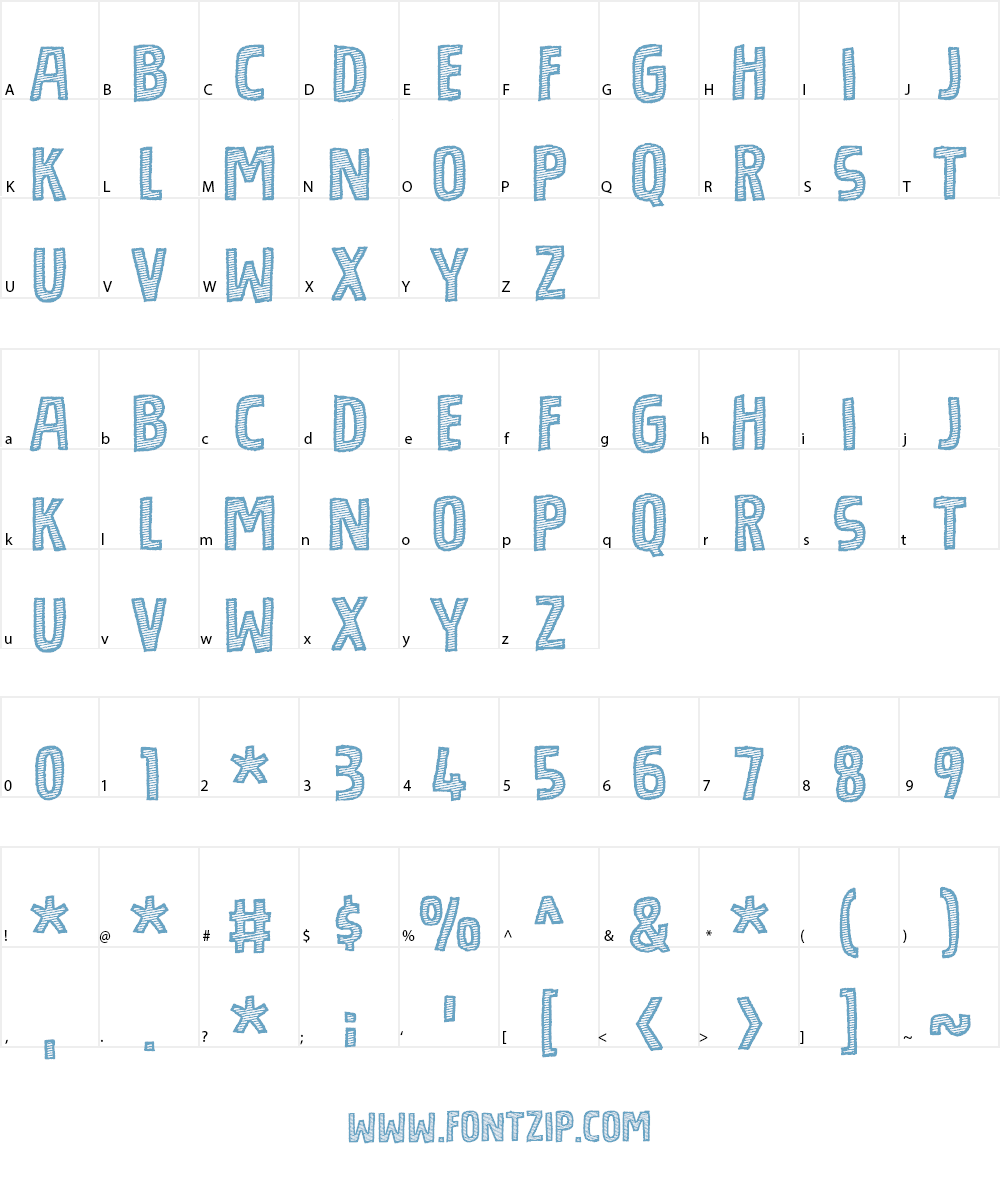
Bouledoug comes in 3 different versions: Regular, Stripe and Black. Play around with these 3 layers and create that handmade look everybody’s talking about!
Comes with contextual alternates that cycles through 7 different versions of each letter AS you type! Wow!